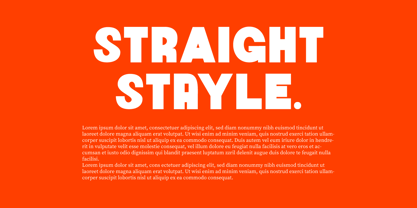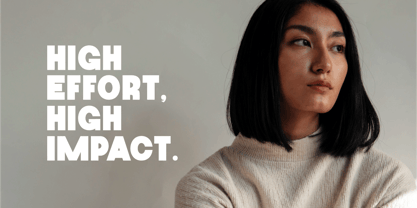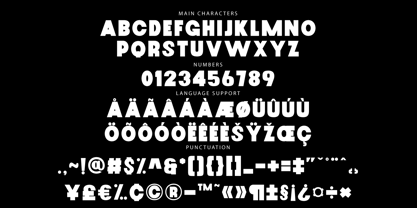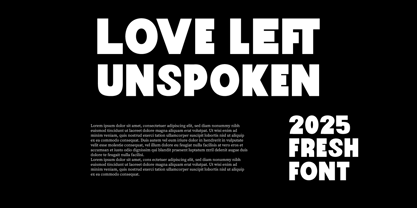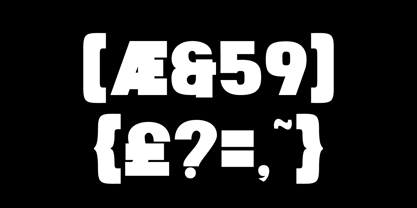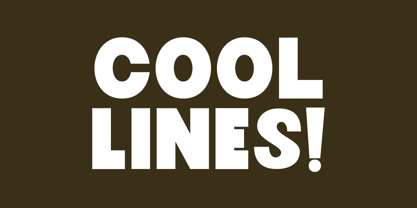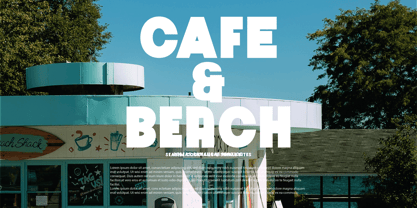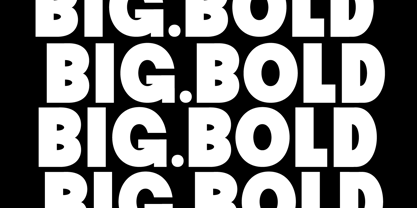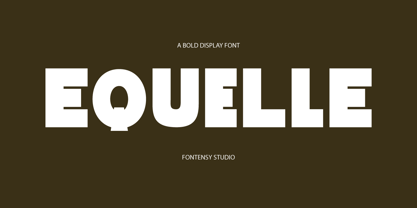
Equelle
by Cut Story
The Equelle Font Family was designed by Ramadhana and published by Cut Story. Equelle contains 1 styles. More about this family
Equelle is a modern display font that combines bold geometry with playful minimalism. With rounded edges and a strong character design, this font is ideal for clean, typography-focused layouts.
Great for:
Minimalist branding & packaging
Bold editorial design
Clean menus & posters
Social media graphics
Features:
Multilingual support
Full punctuation
Designers: Ramadhana Ramadhana
Foundry: Cut Story